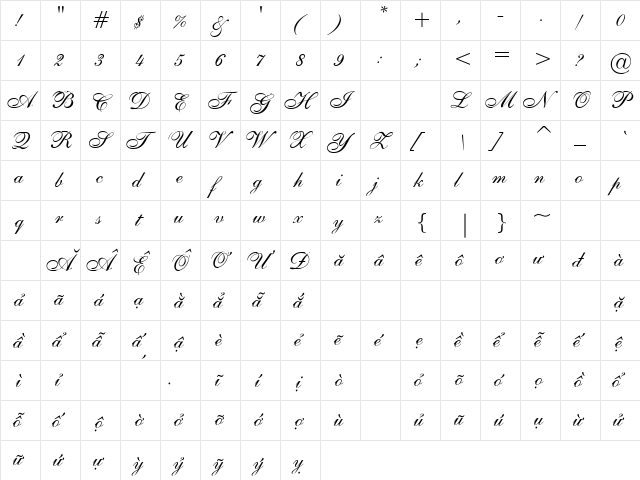
.VnShelley Allegro Regular Font Preview
.VnShelley Allegro Regular
Design Context for .VnShelley Allegro Typeface
.VnShelley Allegro is a composed and adaptable typeface that performs quietly and consistently across a wide range of design contexts.